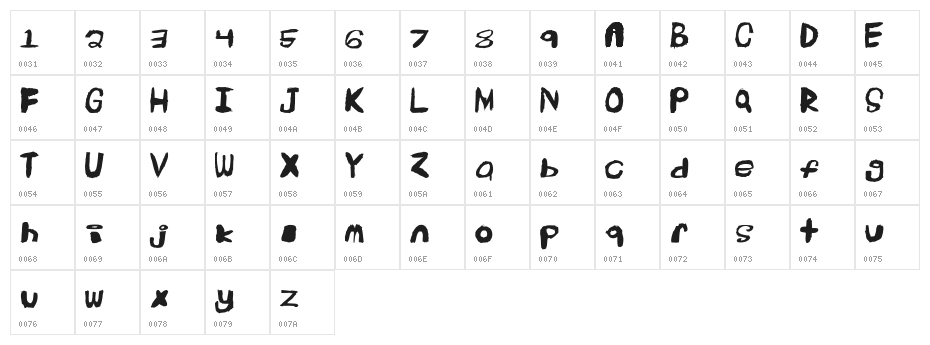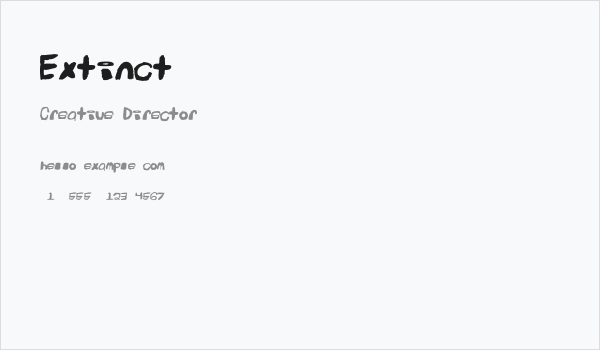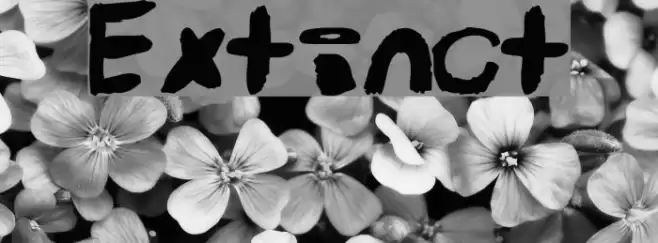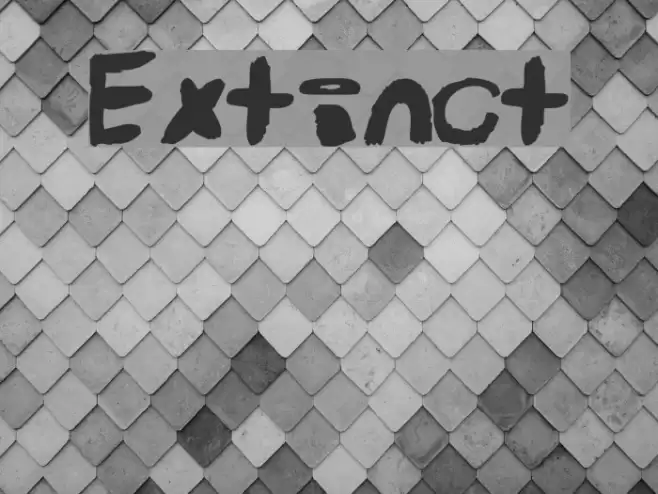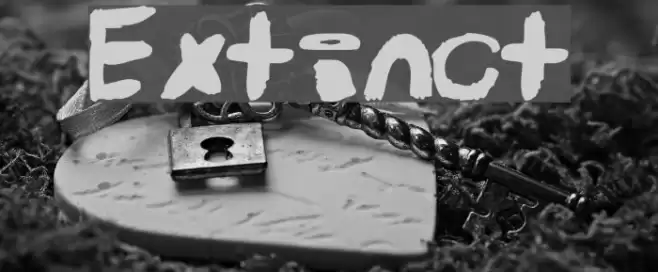
Extinct Font
Extinct Description
This font exhibits a bold and expressive style, characterized by its thick, irregular strokes and a hand-drawn appearance. The letters have a playful and dynamic quality, with varying widths and a slightly rough texture that gives it a unique, artistic flair. The uppercase and lowercase letters maintain a consistent style, while the numbers and special characters blend seamlessly with the overall design. The font's organic and slightly chaotic nature makes it stand out, offering a sense of creativity and individuality. Its boldness and distinctive look make it suitable for projects that require a strong visual impact.
| Overall Style | Artistic, Playful, Expressive |
| Proposed Projects | Ideal for posters, album covers, artistic branding, and creative advertising campaigns. |